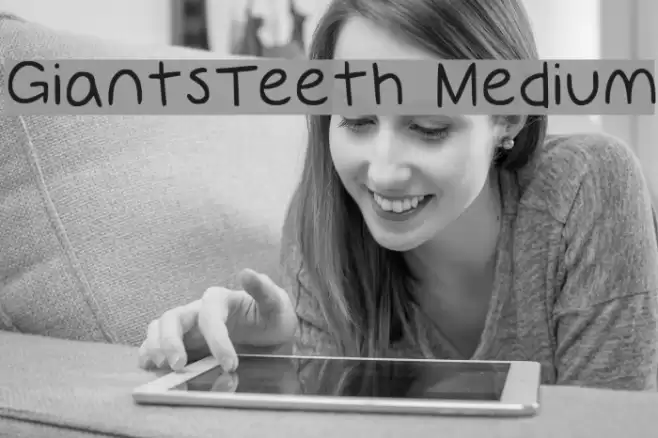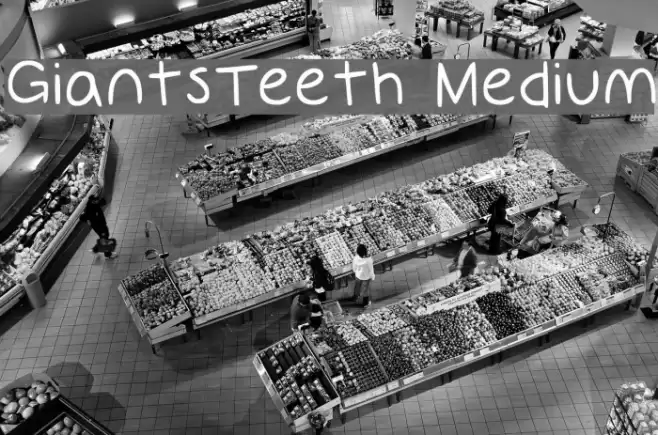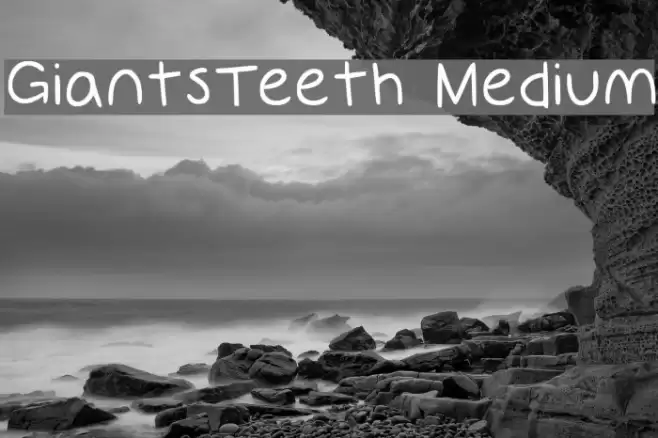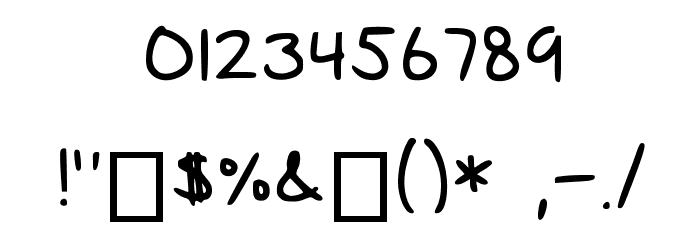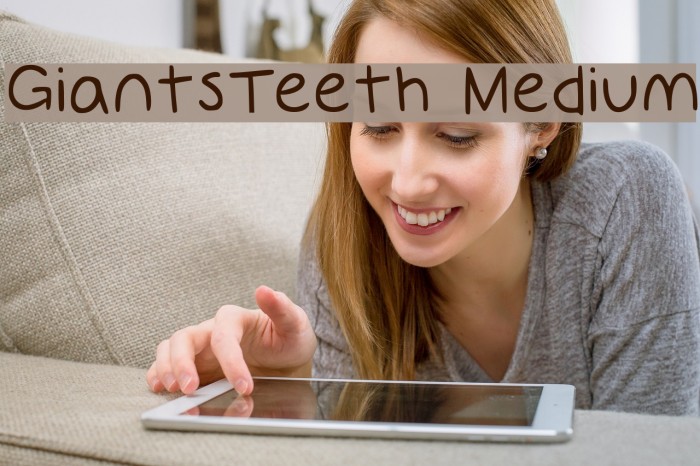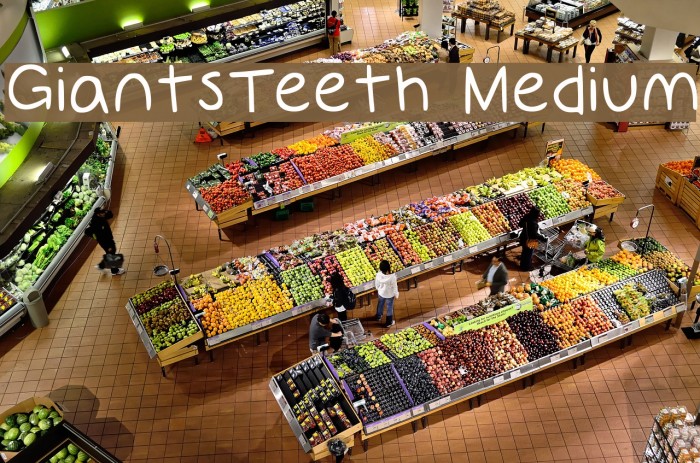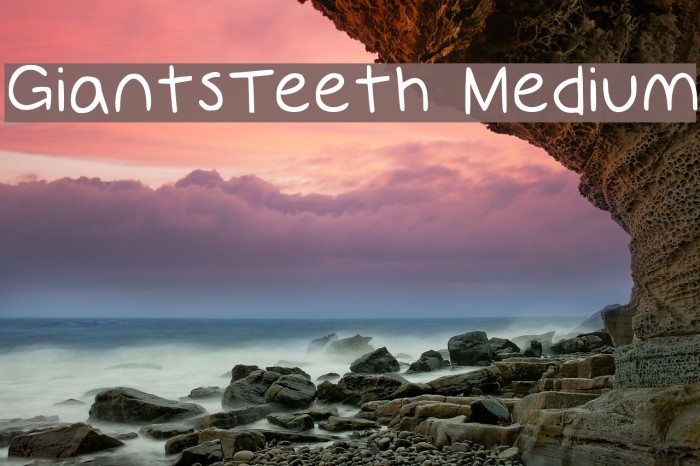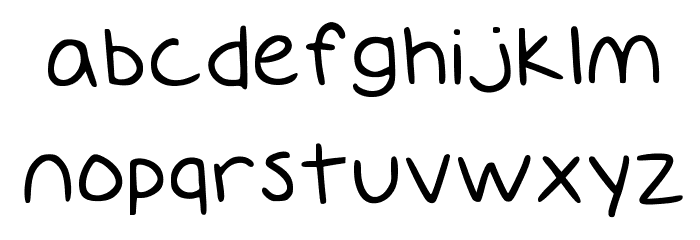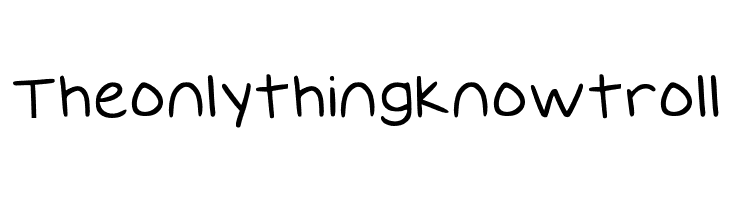
GiantsTeeth Medium Font
GiantsTeeth Medium Description
This font features a playful and informal style, characterized by its handwritten appearance. The letters are slightly irregular, adding a whimsical touch to the overall design. The strokes are consistent in thickness, giving it a uniform look despite its casual nature. The uppercase and lowercase letters maintain a coherent style, with rounded edges and a friendly demeanor. Numbers and special characters are crafted to match the font's informal aesthetic, making it suitable for projects that require a personal or lighthearted feel.
A playful, handwritten-style font with consistent stroke thickness and a casual appearance from Handwritten fonts.
- Proposed Projects: Ideal for children's books, greeting cards, casual invitations, and playful branding projects.
- Overall Style: Casual
- Use Case: Headlines, Logos, Informal text